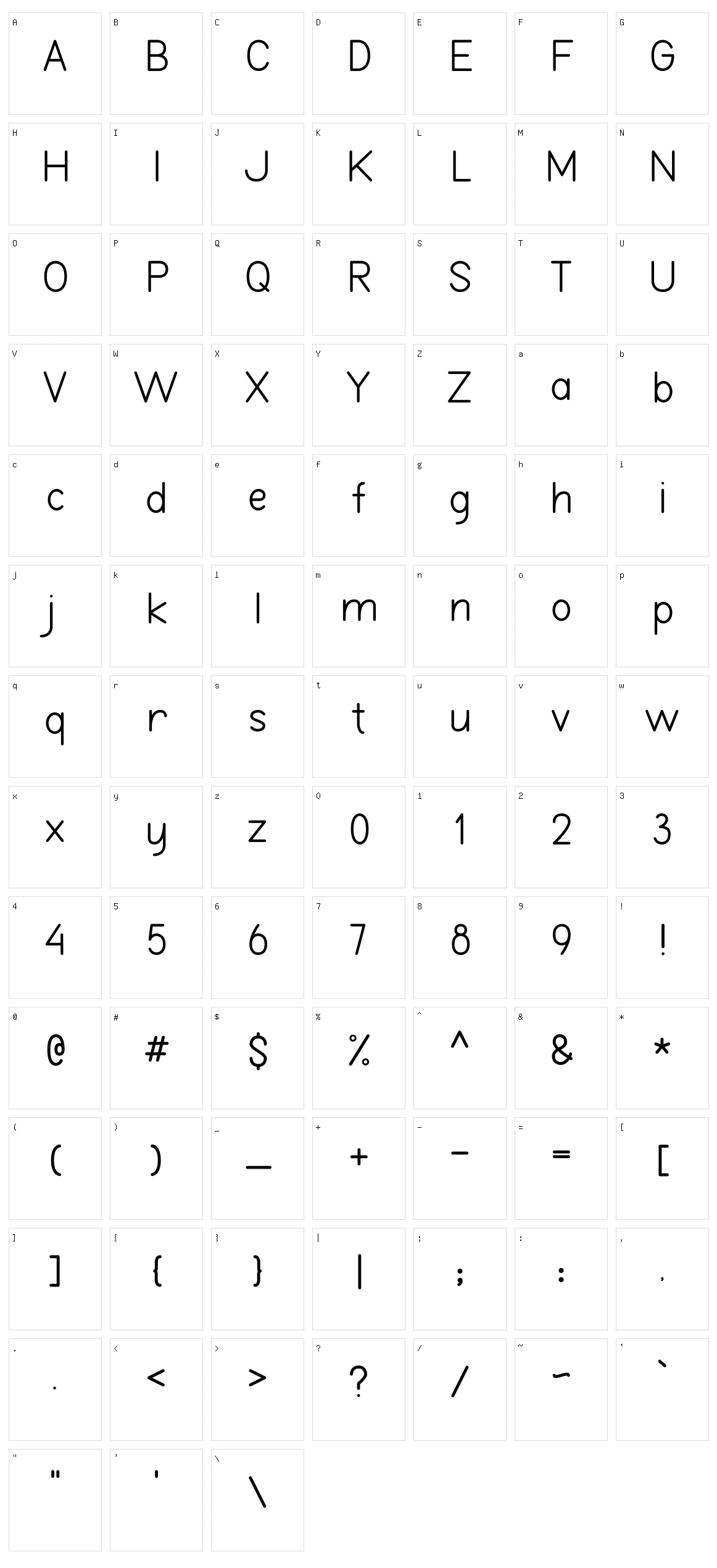
Burd Sans is a modern, simple & clean. Paired with other fonts or stand-alone, this font is perfect for logo design, displays, invitations, labels, signage, magazines, Instagram stories, and much more. It instantly gives your product a luxury feel.
Each file has multi-language support with international characters and punctuations Included!